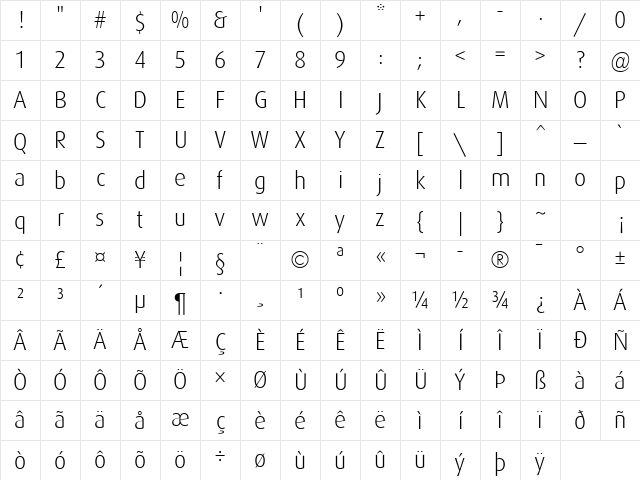
Dax Light Free Font
Dax Light
Foundry: Hans Reichel, . Published by FontShop International FontFont release
Design Context for Dax
Dax is a composed and adaptable typeface that performs quietly and consistently across a wide range of design contexts. Its slender proportions lend an understated elegance to any composition.
Who designed the Dax Light font?
This font was published by Hans Reichel, . Published by FontShop International FontFont release. Check the technical specs section for copyright and designer details.